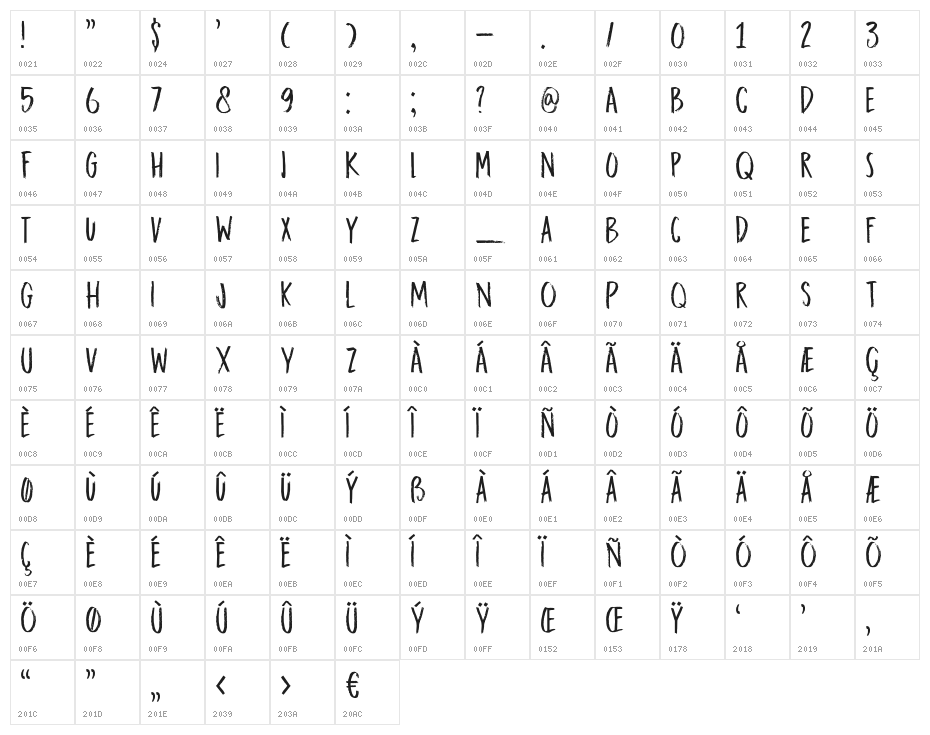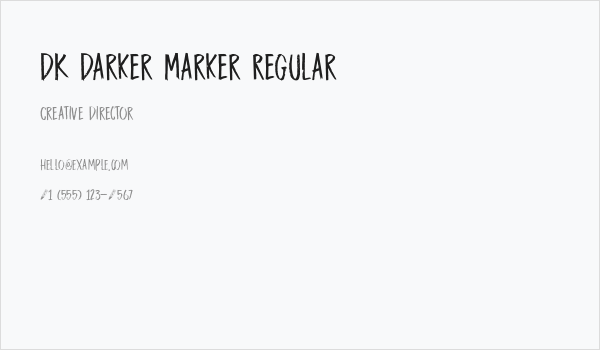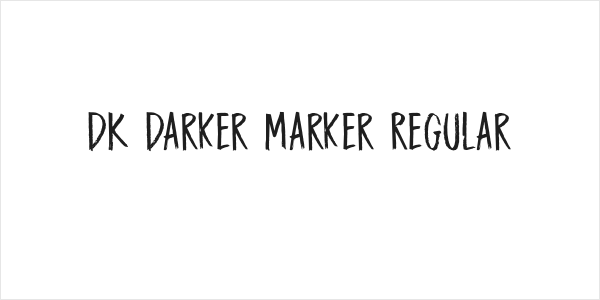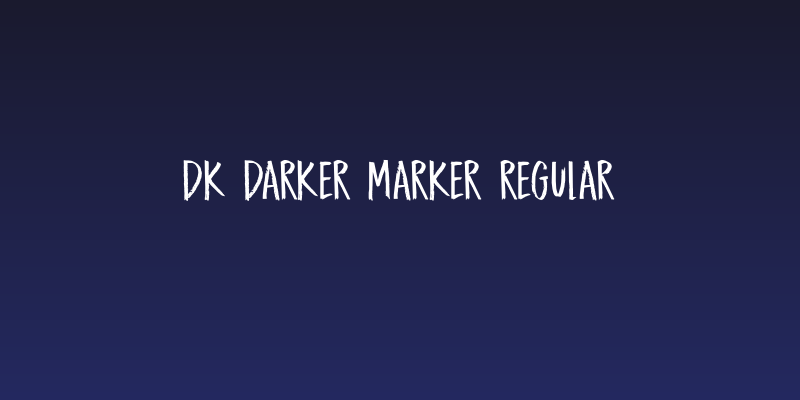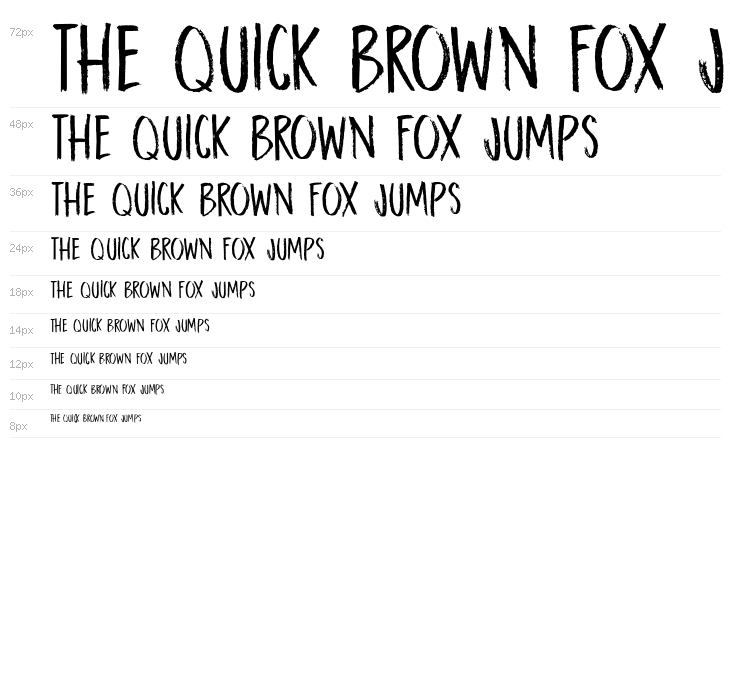
DK Darker Marker Regular Font
DK Darker Marker Regular Description
This font exudes a bold, hand-drawn aesthetic reminiscent of marker strokes. The characters are unevenly weighted, giving a dynamic and energetic feel. The uppercase and lowercase letters maintain a consistent style, with slightly jagged edges and a playful, informal appearance. The numbers and special characters follow the same design ethos, ensuring a cohesive look across all glyphs. This font's unique style makes it stand out, perfect for projects that require a personal touch or a sense of creativity.
| Proposed Projects | Ideal for posters, creative branding, children's books, and any project needing a personal, artistic touch. |